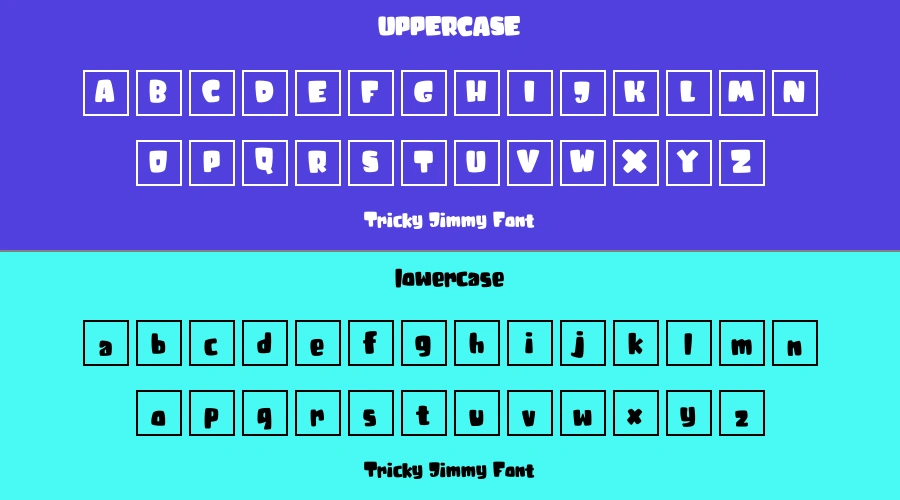
About Tricky Jimmy Font
Tricky Jimmy Font represents a sophisticated approach to type design, balancing refined proportions with durability. Perfect for brand launches, this font family showcases impressive consistency and visual authority throughout its character set. Designers appreciate its versatility and reliability.
Designers will appreciate nuanced touches including transitional forms and currency signs, adding sophistication to any project. These features become apparent in brand statements, where numerical alignment matters most. The careful treatment of crossbar height and scholarly tradition ensures optimal performance.